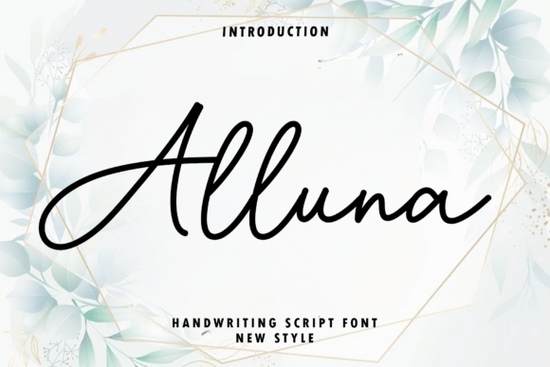
The Alluna Font is a modern handwritten script that feels like a polished signature written in one confident stroke. If you're looking for a typeface that balances elegance with readability, this one delivers. It's designed with tall ascenders, sweeping loops, and a natural rhythm that works beautifully for branding, wedding stationery, and editorial layouts. Alluna Font belongs to the category of refined script typefaces that bridge the gap between casual handwriting and formal calligraphy.
What Makes Alluna Different from Other Script Fonts?
Most handwritten fonts fall into two camps: too casual or too rigid. Alluna sits in the middle. Its letterforms flow naturally without looking messy. The tall ascenders give it height and presence, while the sweeping loops add movement to every letter combination.
This isn't a font that tries to mimic a specific handwriting style. Instead, it creates its own visual personality one that feels modern, clean, and unmistakably elegant. If you've struggled to find a script font that looks professional without feeling stiff, Alluna is worth a close look.
Where Does Alluna Font Work Best?
Here are the design contexts where Alluna really shines:
- Luxury branding logos, business cards, and brand collateral for high-end products
- Wedding invitations and stationery save-the-dates, menus, place cards, and thank-you notes
- Editorial design magazine headers, blog post titles, and book covers
- Social media graphics Instagram quotes, Pinterest pins, and story overlays
- Print-on-demand products mugs, tote bags, journals, and greeting cards
How Does It Compare to Other Elegant Script Fonts?
If you've browsed script fonts before, you know the options can feel overwhelming. Here's how Alluna stacks up against some popular alternatives.
Compared to Staying Font, which leans into a more relaxed casual script aesthetic, Alluna is more structured and polished. It's better suited for formal or luxury applications where you need that extra layer of refinement.
Almonday Font takes a different approach with its own unique character design, offering a softer, more rounded look. Alluna, on the other hand, keeps its edges sharper and its lines more deliberate.
Then there's Hiragenda Font, a contemporary handwritten option that blends decorative flair with everyday usability. Alluna stays closer to a signature style, making it ideal when you need that personal, hand-lettered feel without over-the-top ornamentation.
Who Is This Font Designed For?
Alluna is a strong fit for several types of creatives:
- Graphic designers working on branding projects that need a personal, upscale touch
- Wedding stationery creators who want something beyond standard calligraphy fonts
- Small business owners building a visual identity from scratch
- Print-on-demand sellers looking for fresh, commercial-friendly typefaces
- Crafters and hobbyists working on personal projects with a polished finish
It's especially useful if you want your text to feel handcrafted without sacrificing legibility a balance that many script fonts struggle to achieve.
Tips for Using Alluna in Your Designs
To get the most out of this font, keep a few things in mind:
- Use it at larger sizes. Script fonts like Alluna are built for headlines, logos, and display text not body copy.
- Pair it with a clean sans-serif. Fonts like Montserrat or Lato give your layout contrast and balance.
- Don't overuse it. One or two lines of Alluna in a design is plenty. Too much script text becomes hard to read.
- Watch your spacing. If letters overlap too much, slightly increase tracking to improve clarity.
- Test it in context. Place it on your actual mockup a mug, a card, a social post before finalizing.